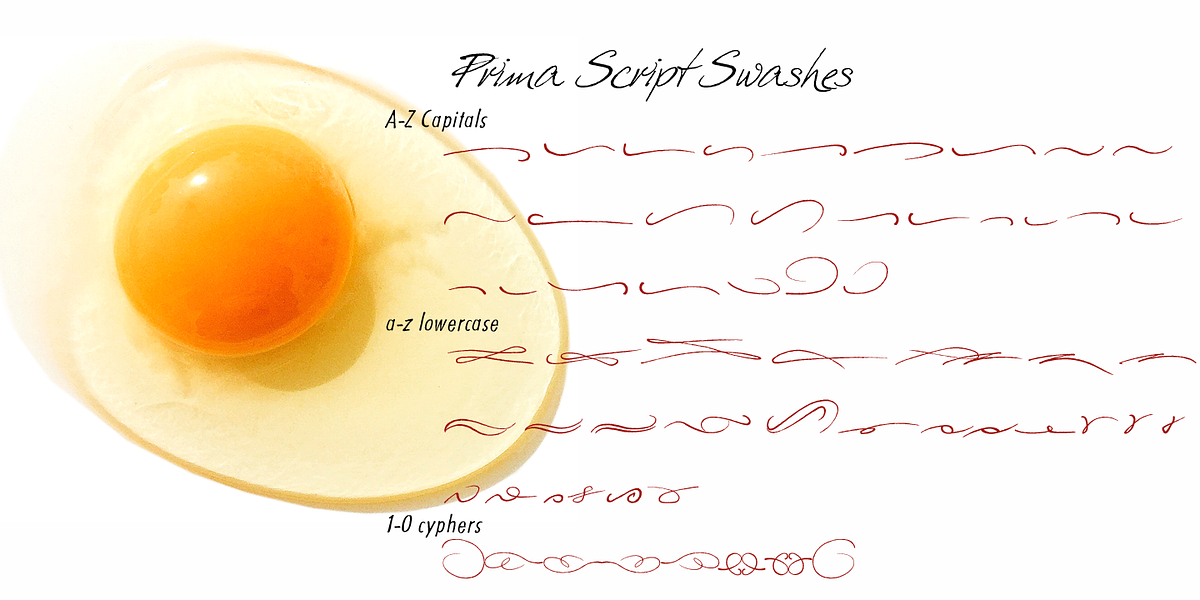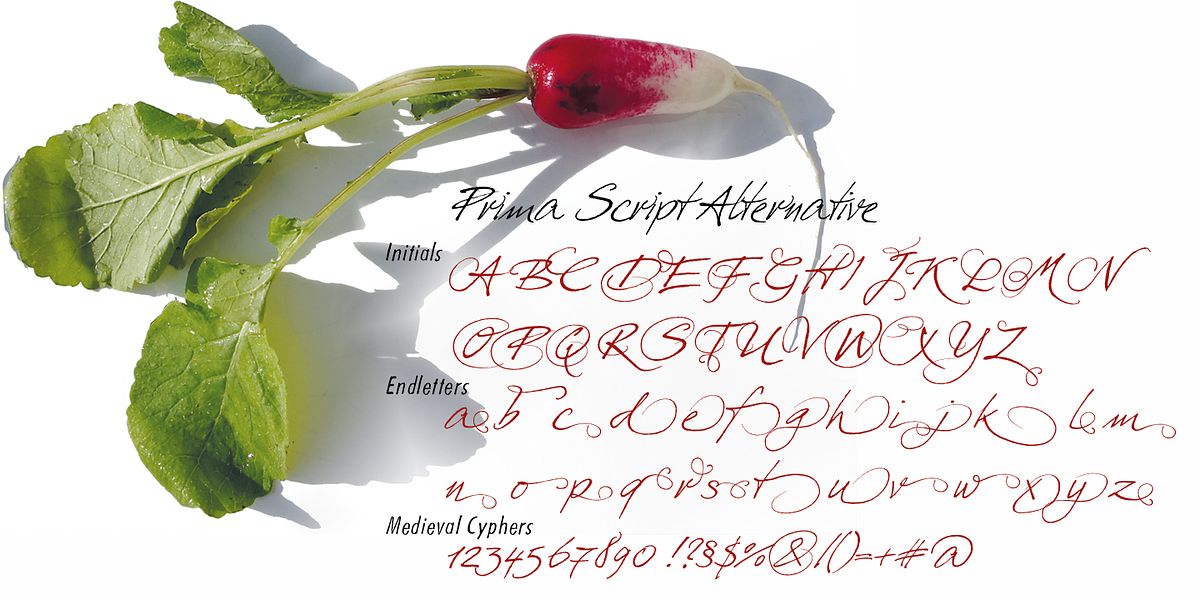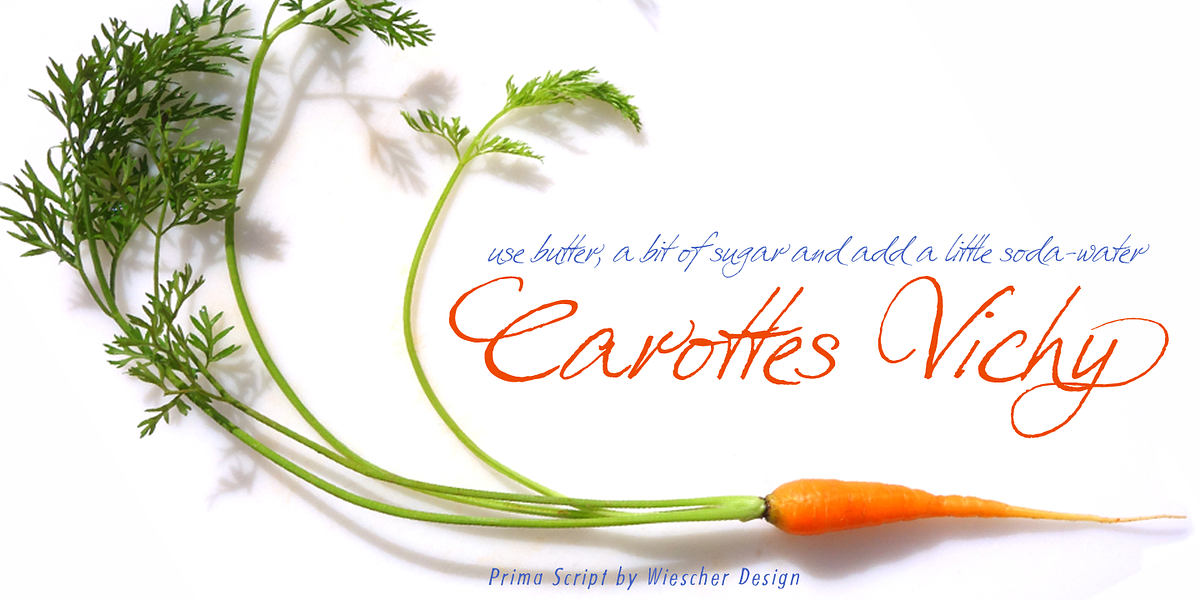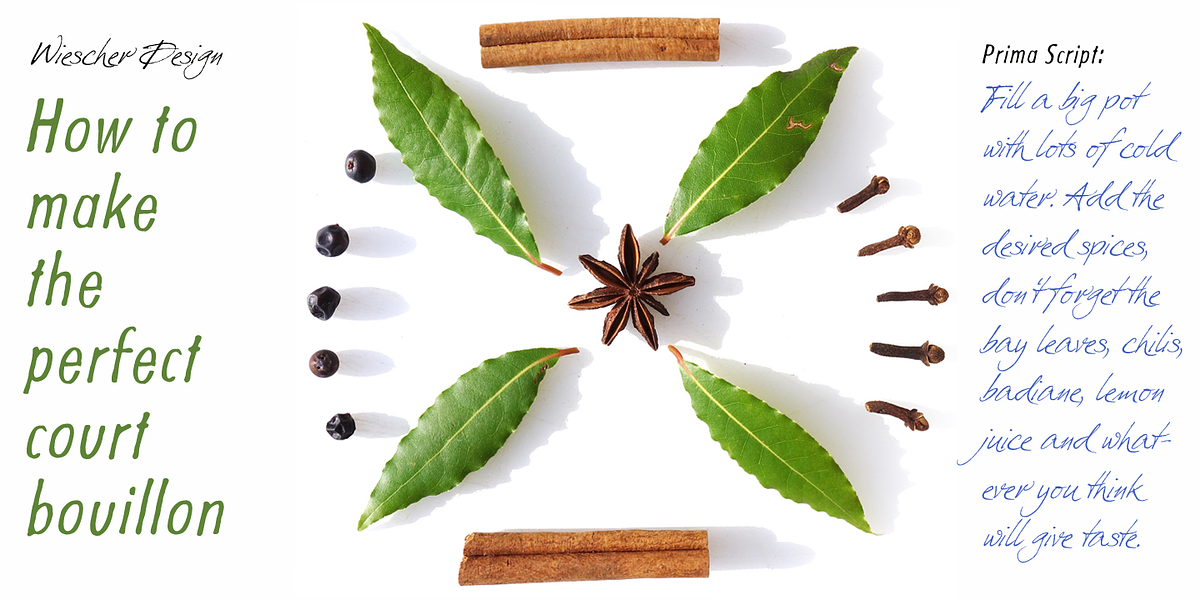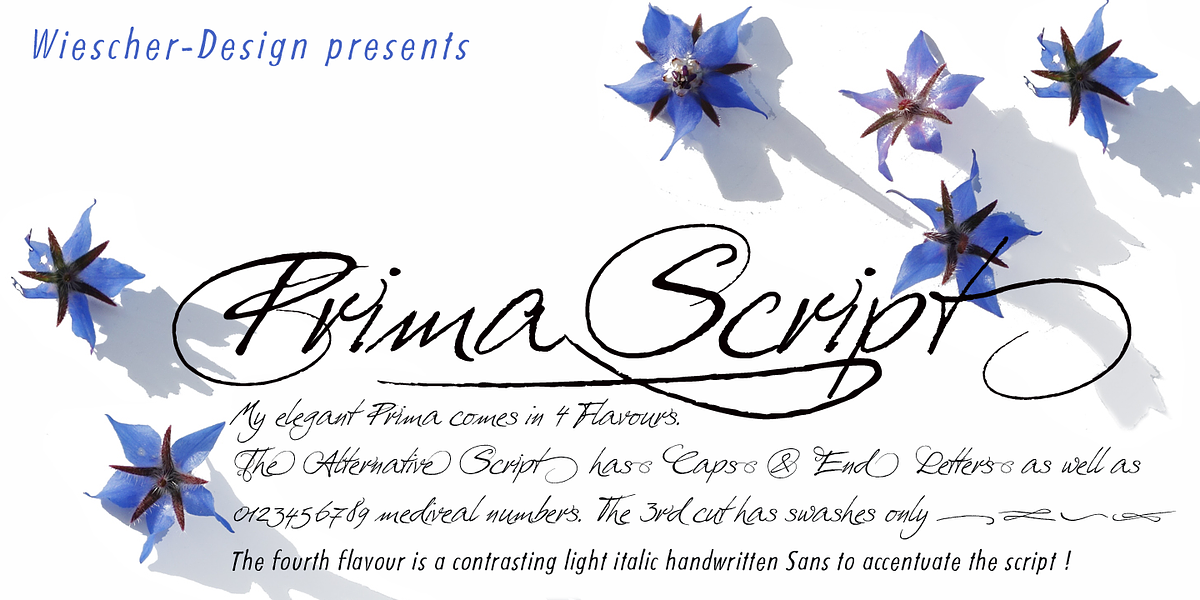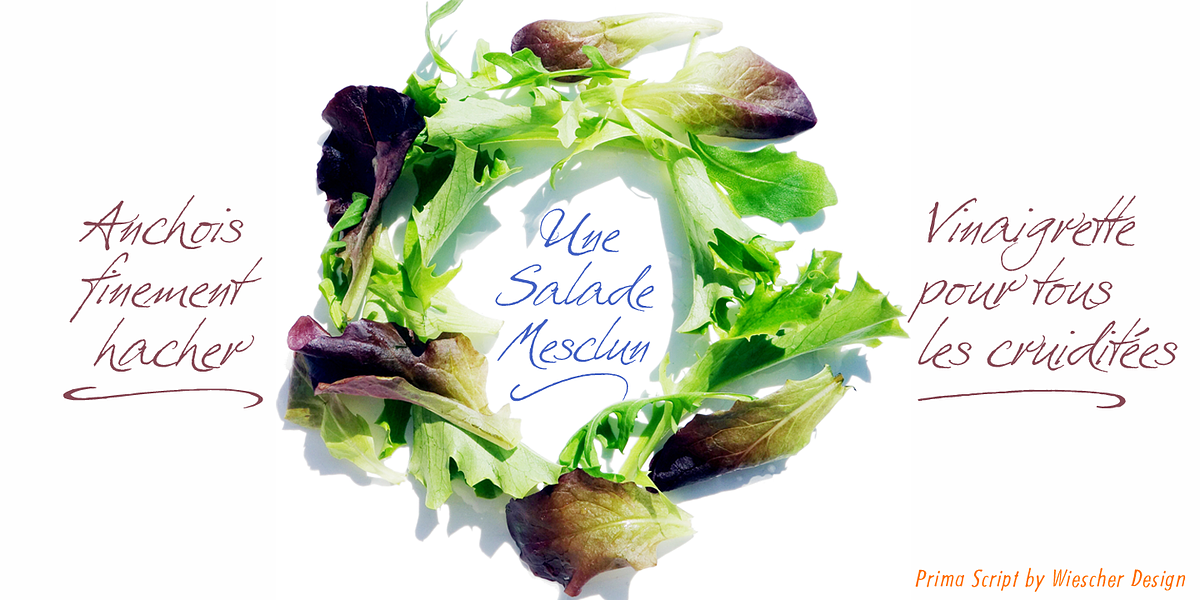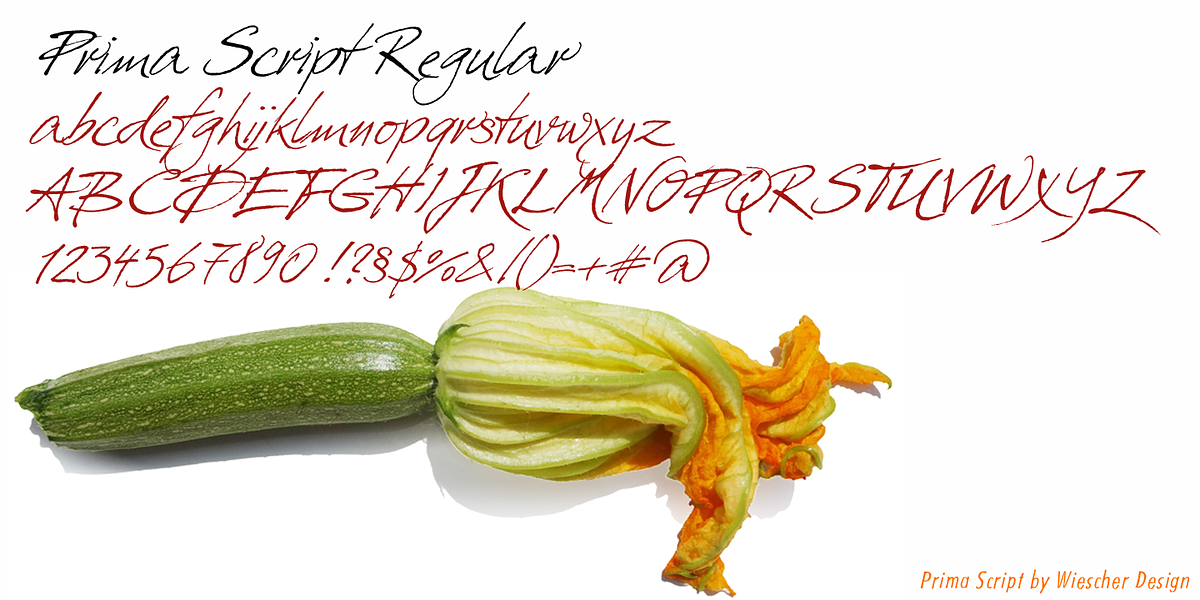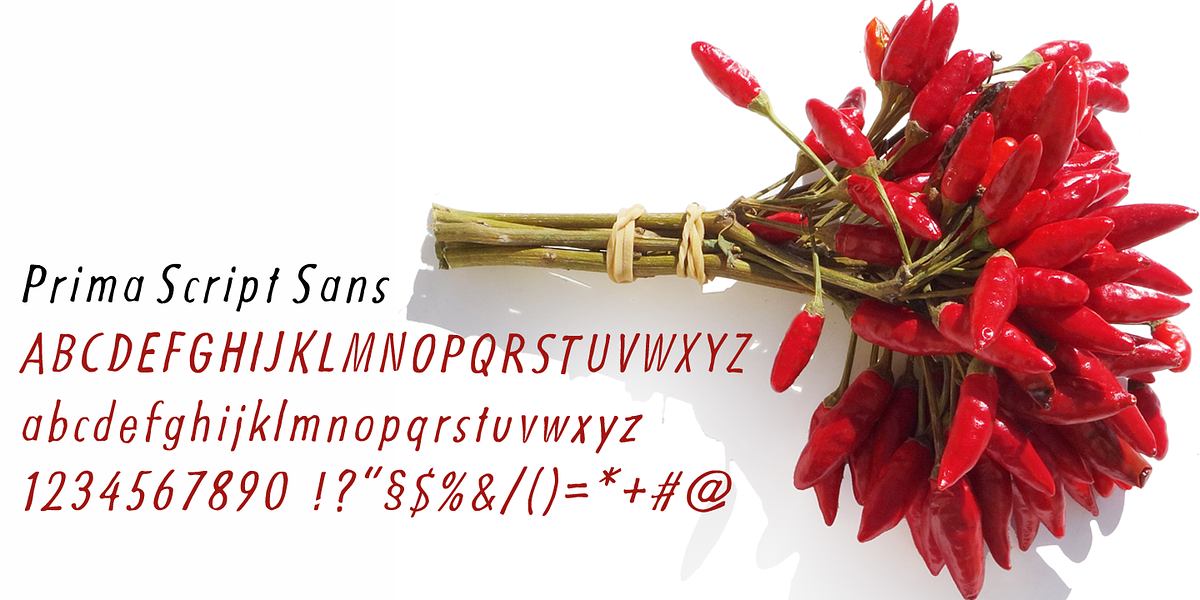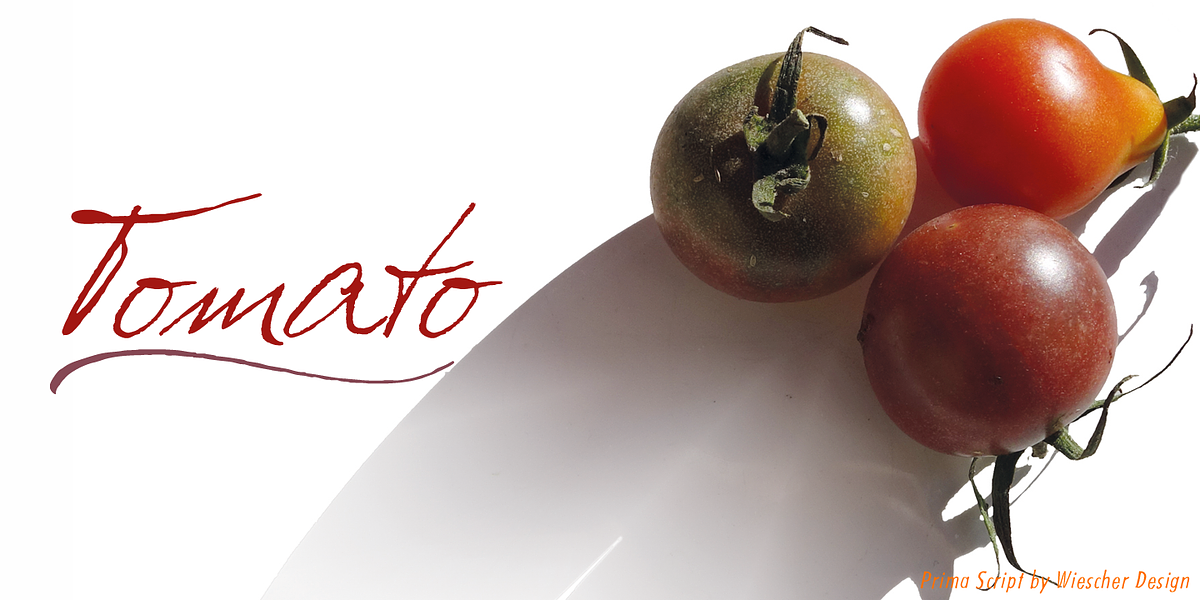
Prima Script
Prima Script is a handcrafted formal script font designed specifically for use in menus and cookbooks. It features alternate initials and end letters, as well as medieval cyphers and swashes. The font set also includes a hand-drawn sans font for added versatility.